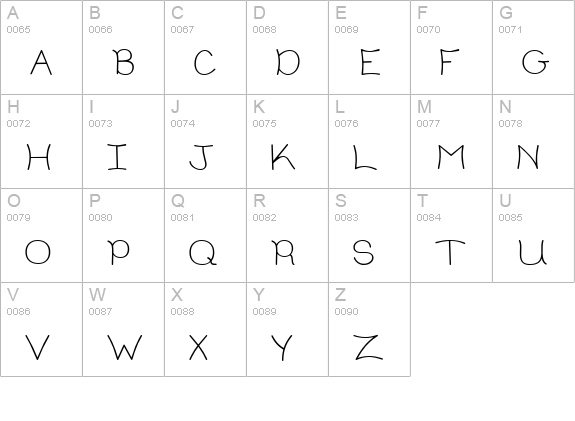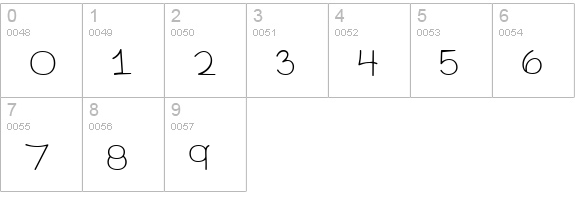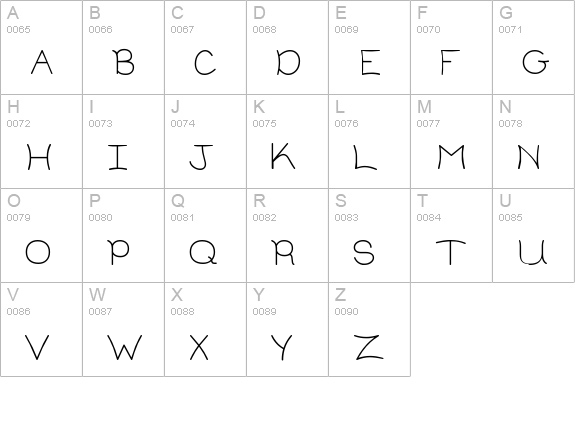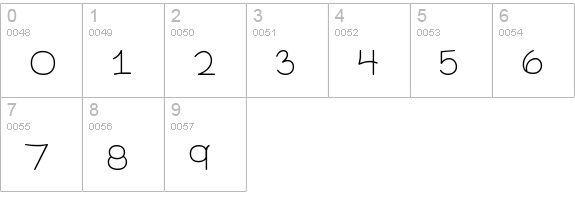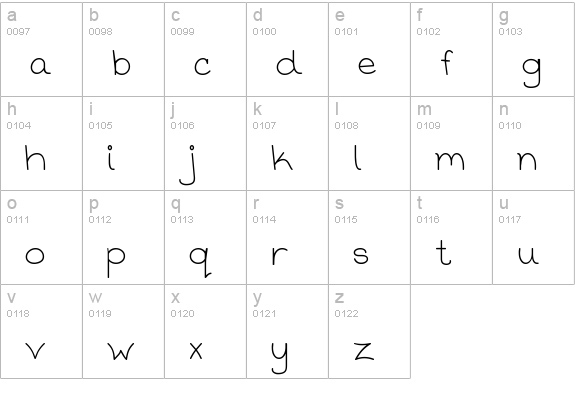
CK Tween Font Details
The CK Tween font is a versatile and stylish typeface that exudes a modern and playful vibe. With its sleek lines and contemporary design, this font is perfect for a wide range of creative projects, from branding to graphic design. CK Tween is a free font that is easily accessible for designers looking to add a touch of sophistication to their work. You can download this font for free at FontsMarket.com and elevate your designs with its unique charm and elegance.